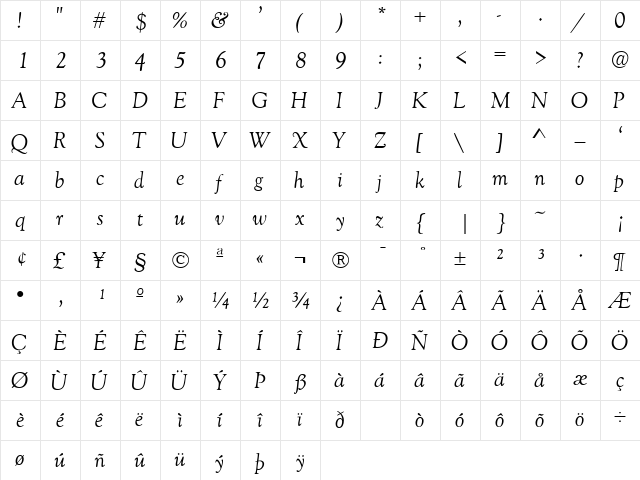
GoudyRetrospectiveSSK Italic
Design Context for GoudyRetrospectiveSSK Typeface
GoudyRetrospectiveSSK has the warm character of retro typography — evoking diners, record sleeves, and the golden age of print advertising. Its italic angle brings a sense of urgency and motion to the letterforms.
Font Pairing: Combine GoudyRetrospectiveSSK with a simple slab or neutral sans — period-accurate companions reinforce the vintage feel without competing for attention.
Pro Tip: Lean into GoudyRetrospectiveSSK's period character by pairing it with aged paper textures, muted colour palettes, and vintage illustration styles.